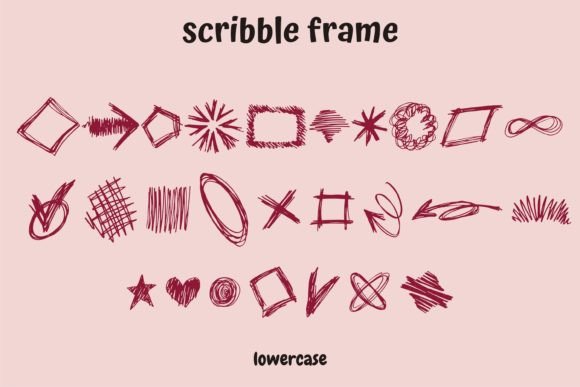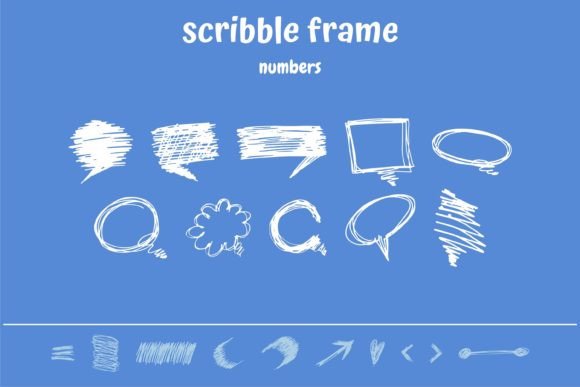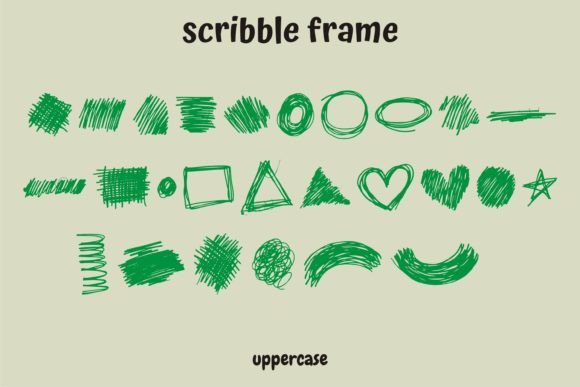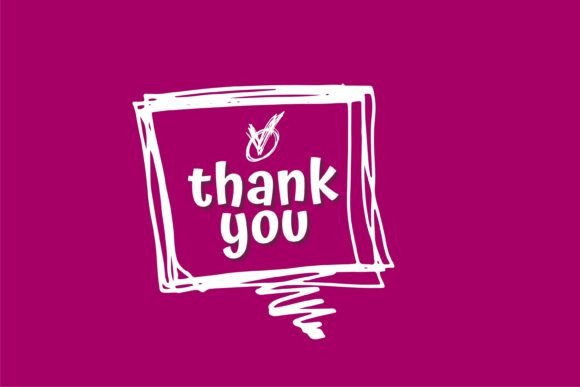
Scribble Frame Font
“Scribble Frame” is a playful and versatile dingbats font that offers a collection of hand-drawn frames, dividers, and borders to enhance your designs. With its whimsical and doodle-like style, this font adds a charming and creative touch to any project.
One of the key features of “Scribble Frame” is its wide variety of frame designs. From simple rectangular frames to ornate and intricate shapes, this font provides a range of options to suit different design needs. Use these frames to highlight and showcase important content, such as titles, quotes, or images. They can be applied to posters, flyers, social media graphics, invitations, and more, instantly adding visual interest and a playful touch to your designs.
The dividers in “Scribble Frame” are perfect for adding separation and organization to your layouts. Whether you want to divide sections of text, create decorative accents, or add visual flow to your designs, these doodle-like dividers will do the trick. They can be used in various projects, including brochures, menus, worksheets, and presentations, to give your content a unique and artistic flair.
In addition to frames and dividers, “Scribble Frame” offers a selection of decorative borders. These borders can be used to add a finishing touch to your designs, creating a cohesive and polished look. Whether you’re designing cards, stationery, scrapbook pages, or any other creative project, these hand-drawn borders will elevate your designs and make them truly outstanding.
The versatility of “Scribble Frame” extends beyond its practical use as frames, dividers, and borders. The doodle-like style of this font can also be used as decorative elements or embellishments in your designs. Add these playful characters as accents, patterns, or even as standalone visuals to bring a touch of whimsy and creativity to your projects.
Overall, “Scribble Frame” is a fun and useful dingbats font that allows you to add a unique and hand-drawn touch to your designs. Whether you’re framing important content, adding decorative dividers, or incorporating playful borders, this font is sure to make your designs stand out and capture attention. So, let your imagination run wild and make your designs outstanding with “Scribble Frame” dingbats font!